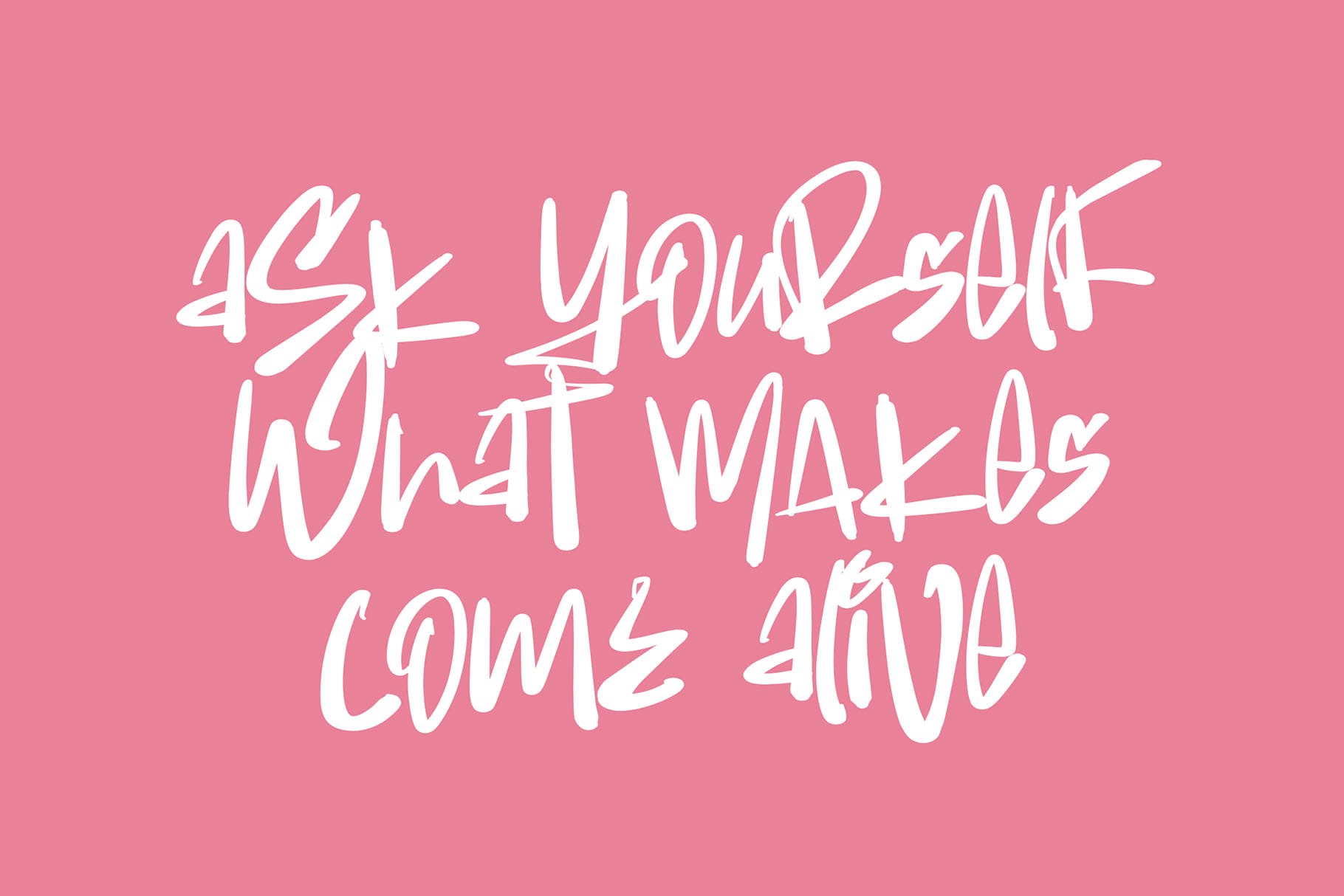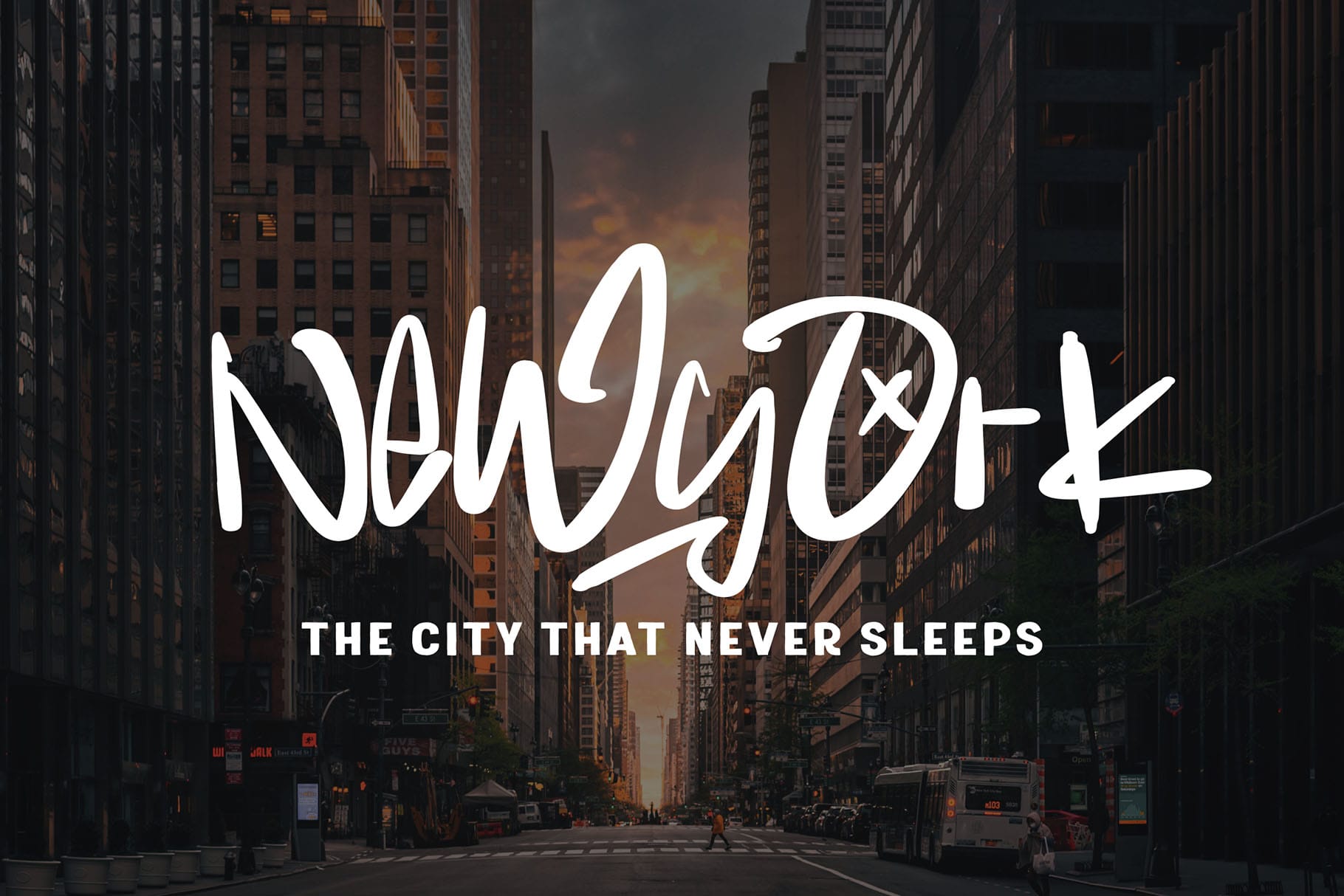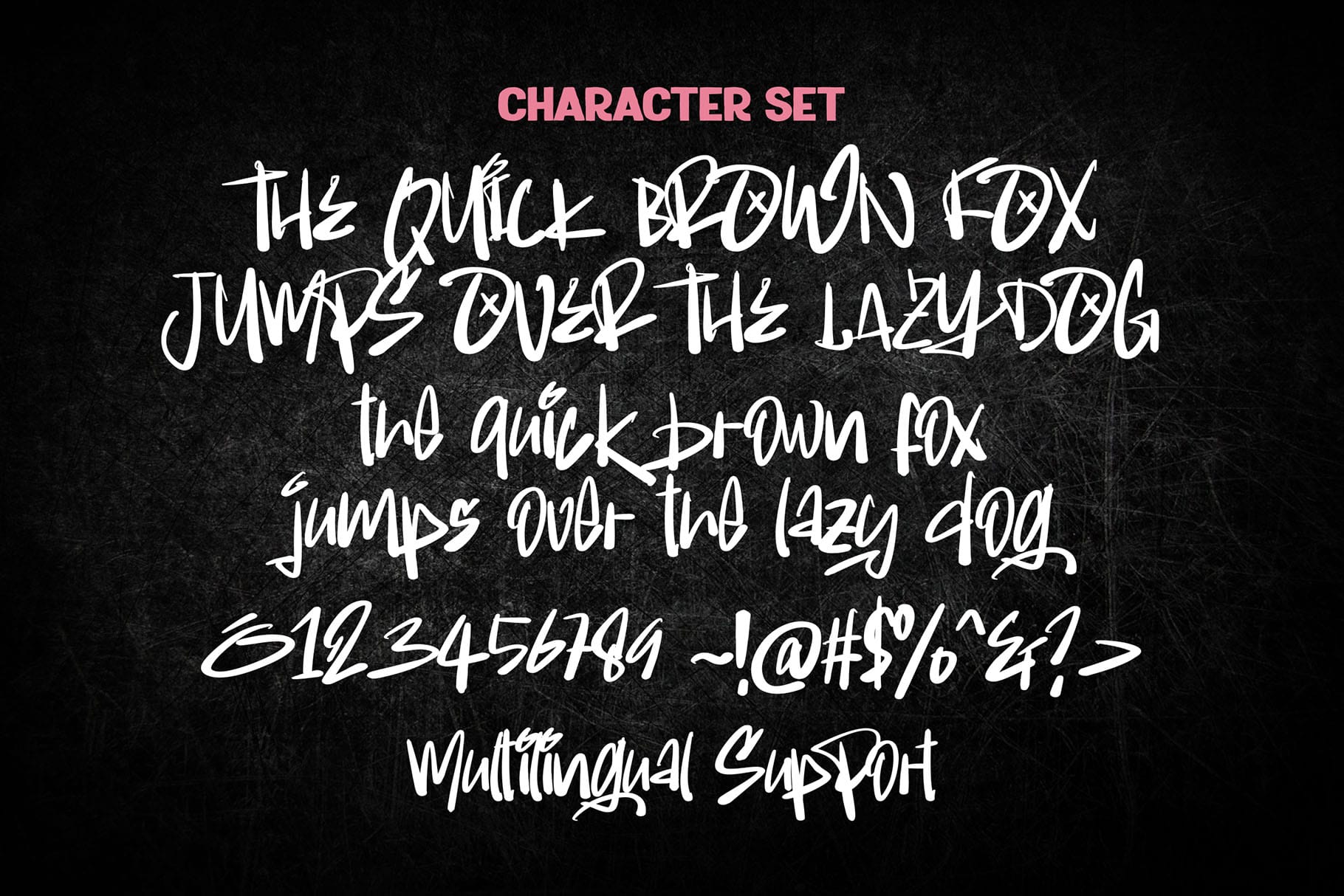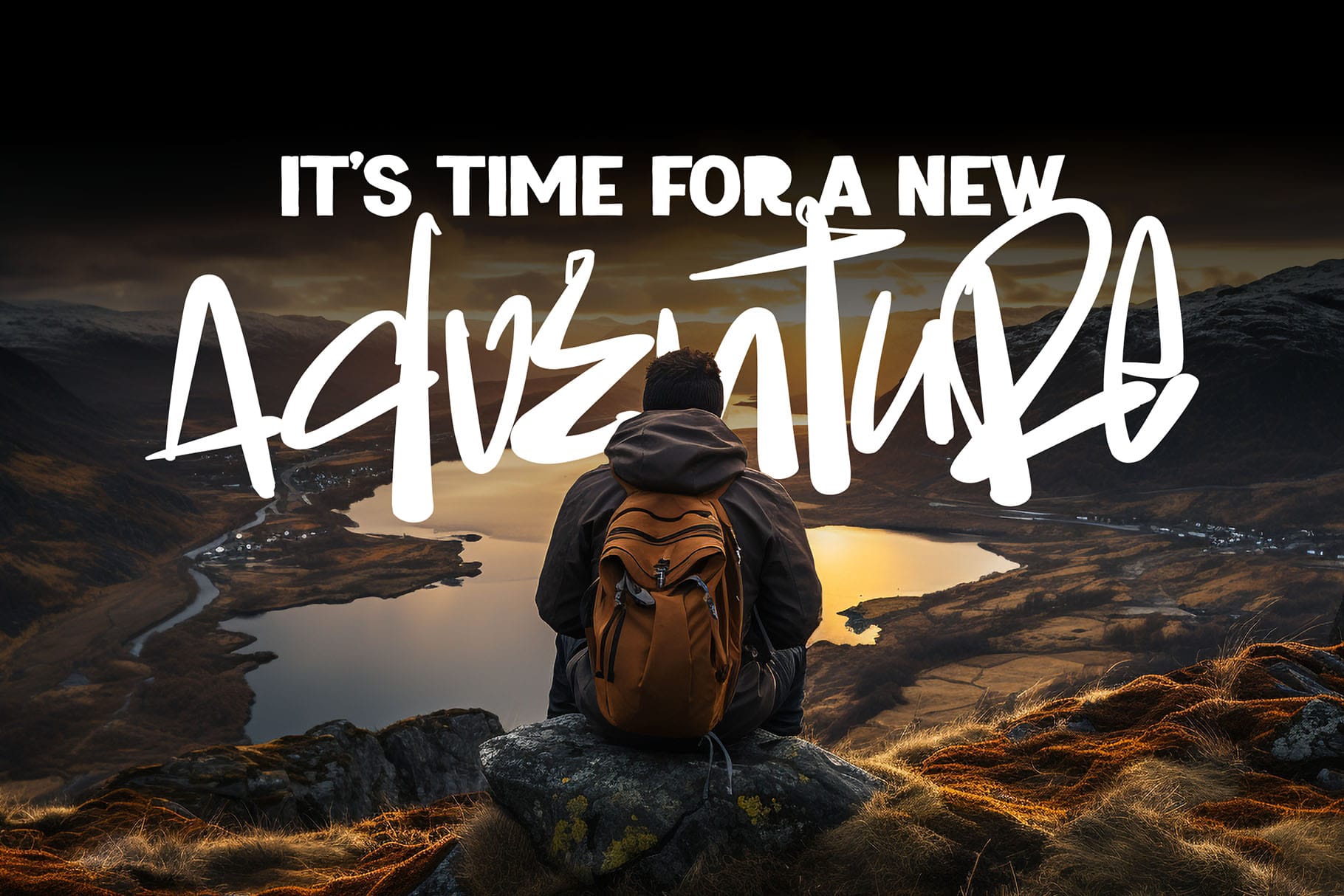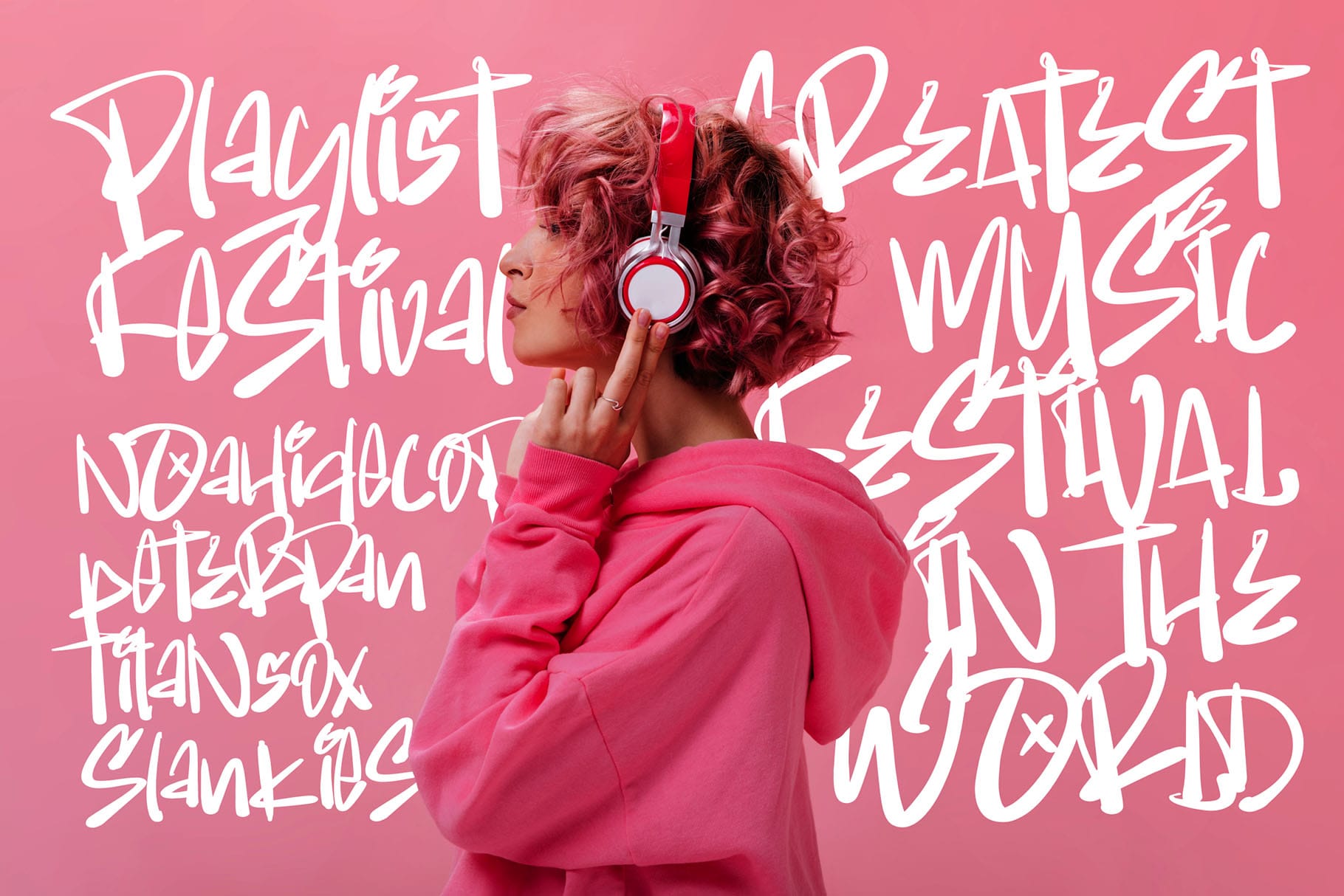
Quick Phestor
Quick Phestor isn’t just a font; it’s a freestyle typographic revolution, an unbridled surge of creativity that defies convention. With the bold strokes of a marker, each character becomes a canvas for dynamic expression, embodying the raw energy of freestyle art. This font is not merely a tool; it’s a statement—a testament to the untamed spirit of spontaneous design.
In the realm of marker display fonts, Quick Phestor stands as a powerful symbol of unrestricted expression. Every letter, bold and unapologetic, paints a vivid picture of creativity unchained. Quick Phestor isn’t just ink on paper; it’s a freestyle manifesto, inviting designers to break free from the ordinary and embrace the dynamic chaos of spontaneous typography. This font isn’t a choice; it’s a visual rebellion, a powerful stroke in the language of expressive design.